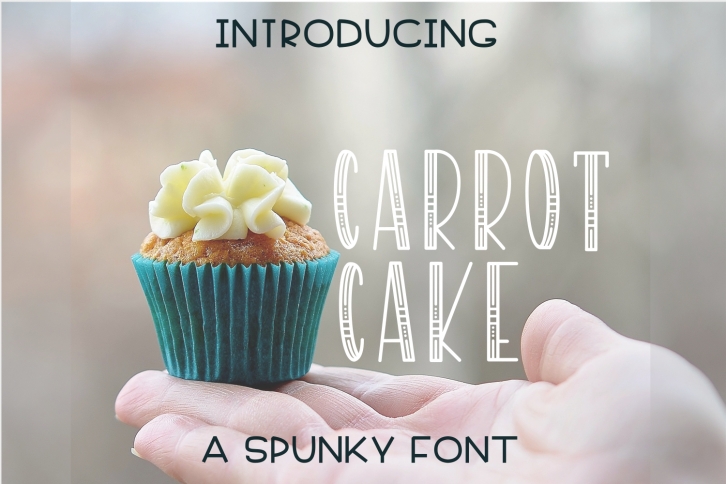
Carrot Cake is a gorgeous font that was realeased on January 12, 2018. The font can be used in many style contexts and design environments. Perfect for invitations, magazines, websites, logos, and more! It was designed by Justina Tracy and the file size is 4.4 MB. Thanks for checking out this font!